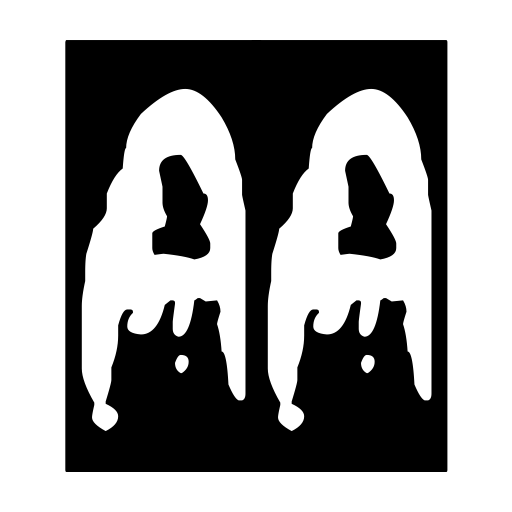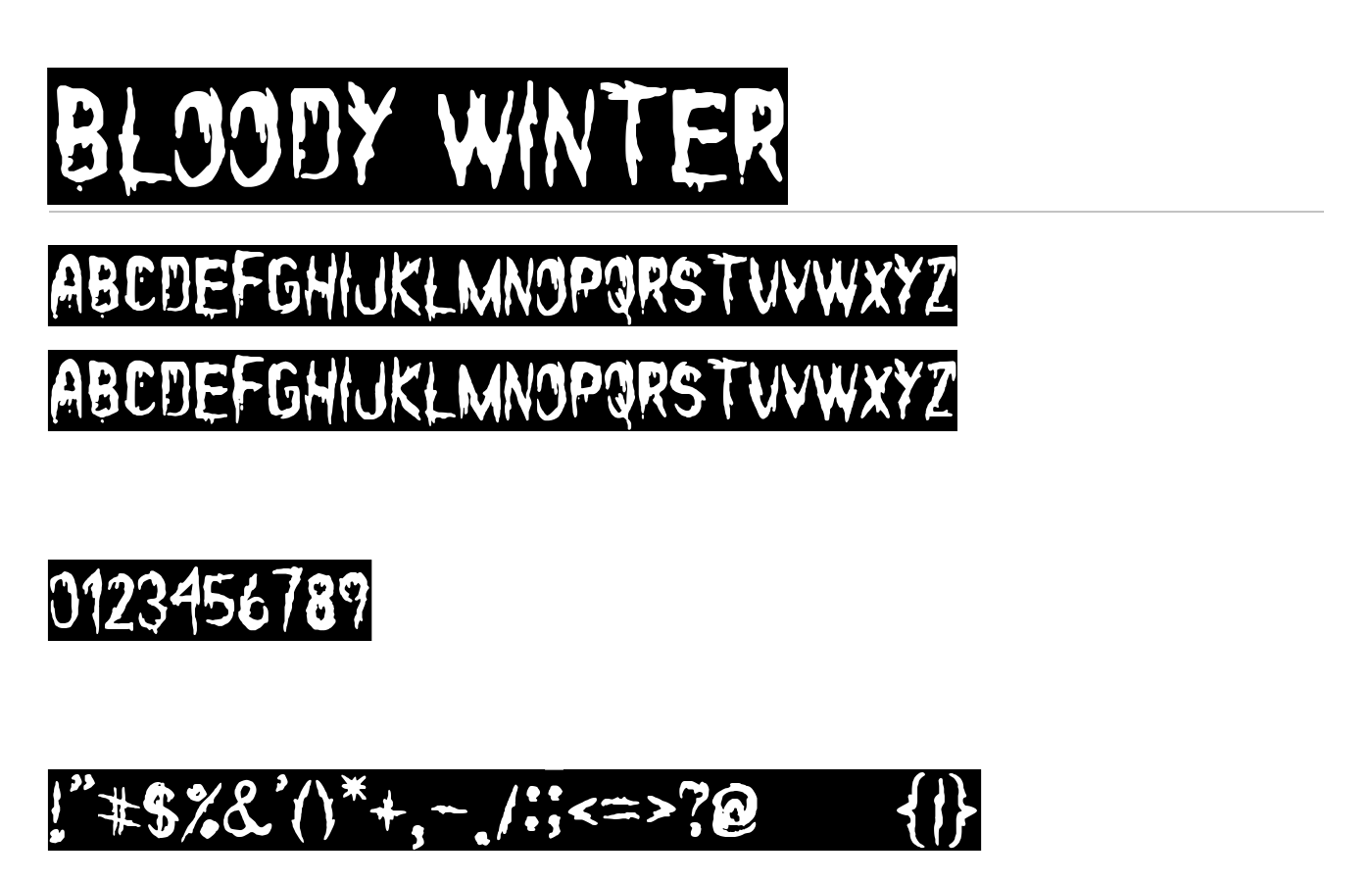
Bloody Winter is a bold, decorative sans serif font with irregular, dripping edges that create a spooky, horror-themed aesthetic. Its jagged, uneven letterforms and rough texture give it a chilling, raw feel, making it perfect for Halloween designs, horror movie posters, or edgy branding that aims to evoke suspense and fear. This font works best in headlines and display uses where its distinctive, eerie style can truly stand out.
Bloody Winter Font
About Bloody Winter Font
| Font family | Bloody Winter Font |
| Designer | Jordi Manero Pascual |